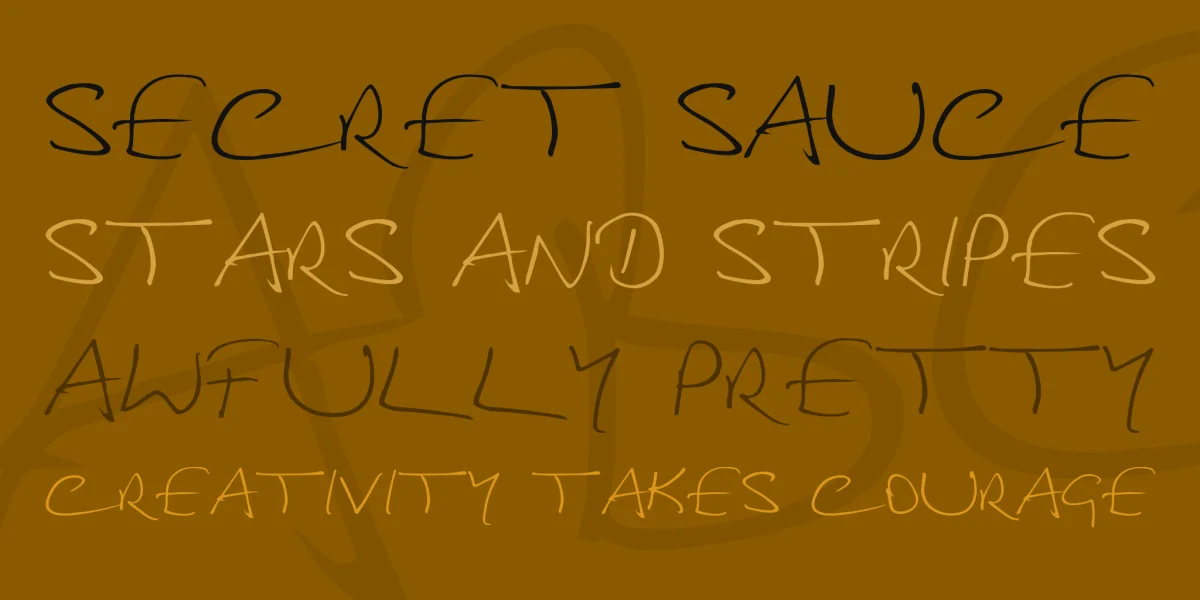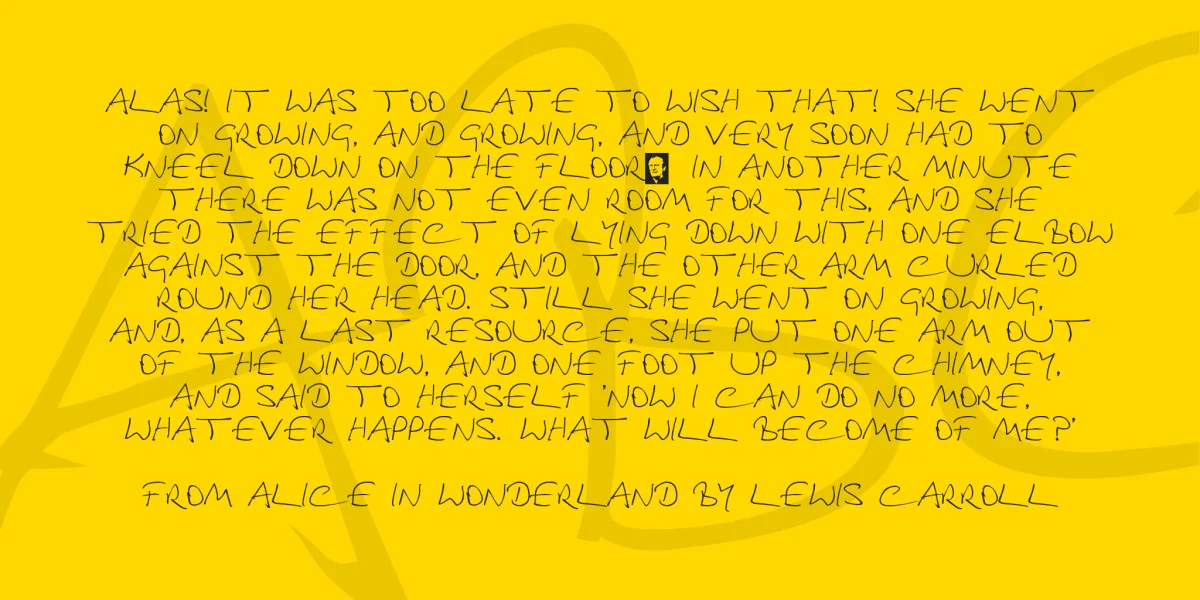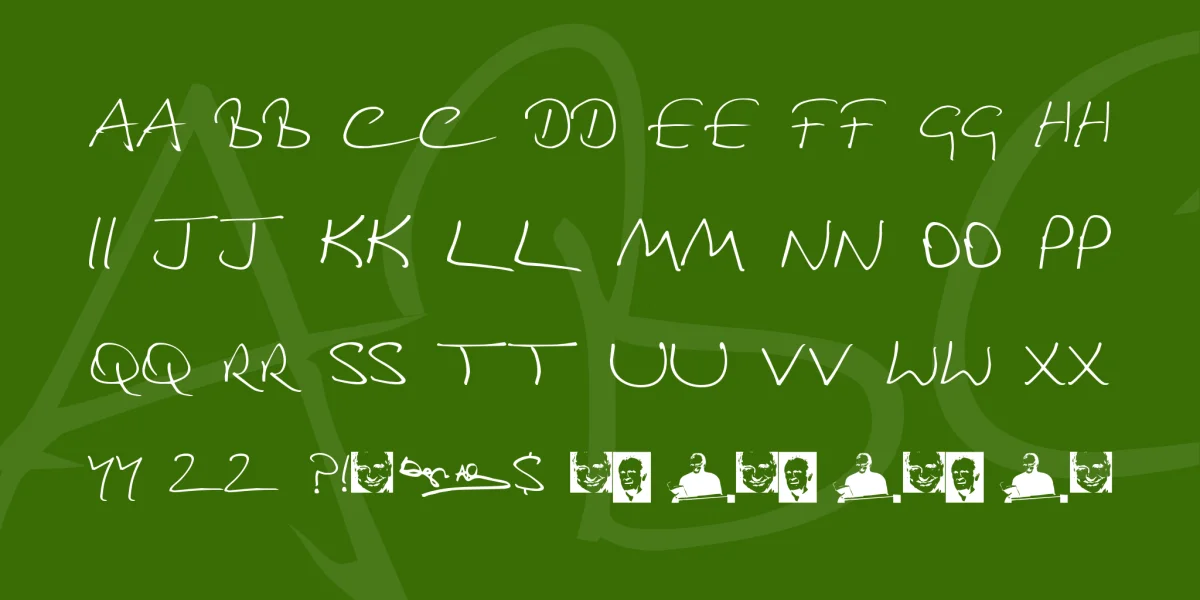
(Caps=lower, some fudged punctuation) -- Douglas Adams, one of my favorite authors, died from a heart attack. Here's a font made from a handwriting sample he gave me in 1999 (with some fudged punctuation to make it usable). Contains a few traced pictures of him, too. Doug, I'll let you go on that pen you owe me... so long, and thanks for all the fish!